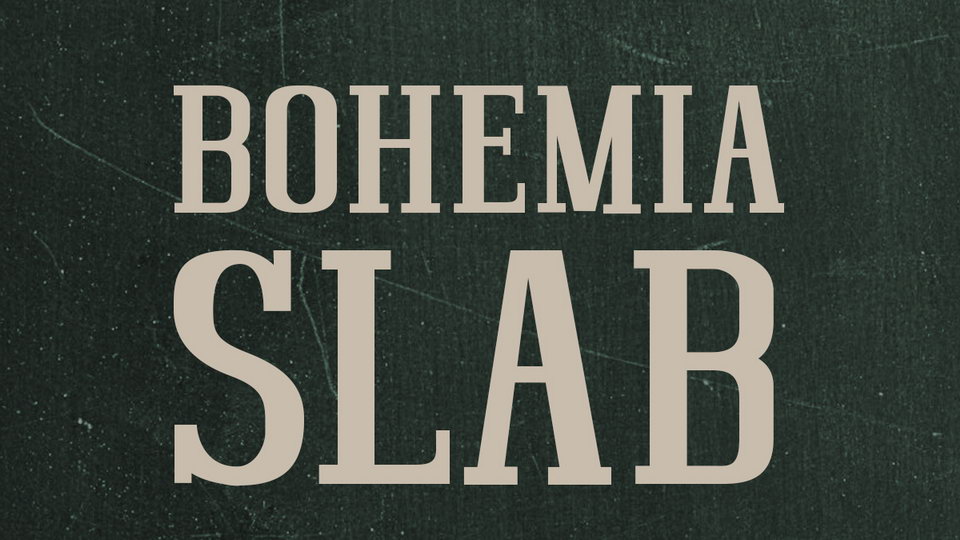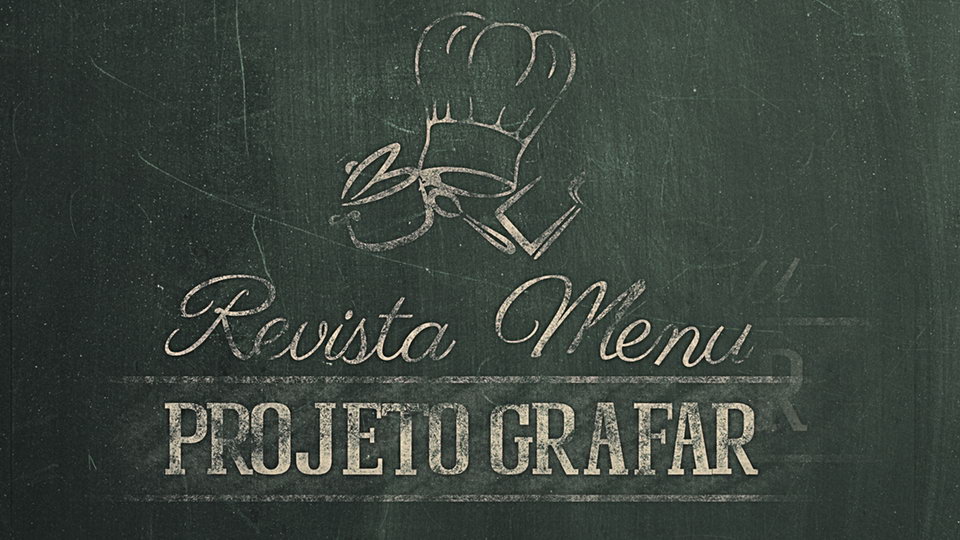
Bohemia Slab is a classy slab serif font, created for menu decoration. It comes with uppercase, lowercase letters, numbers and basic punctuation.
Bohemia Slab font is great for headlines, branding, packaging, printing and other graphic design projects.